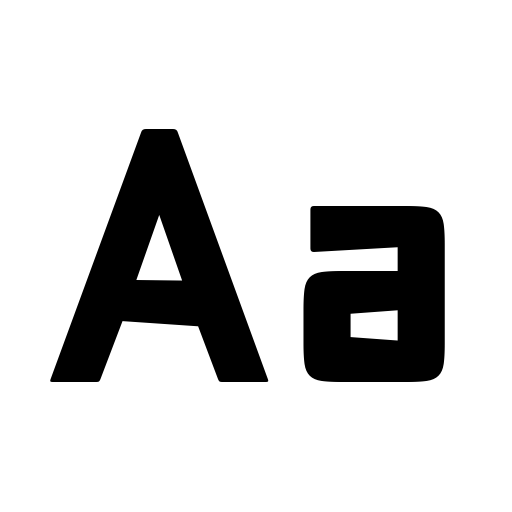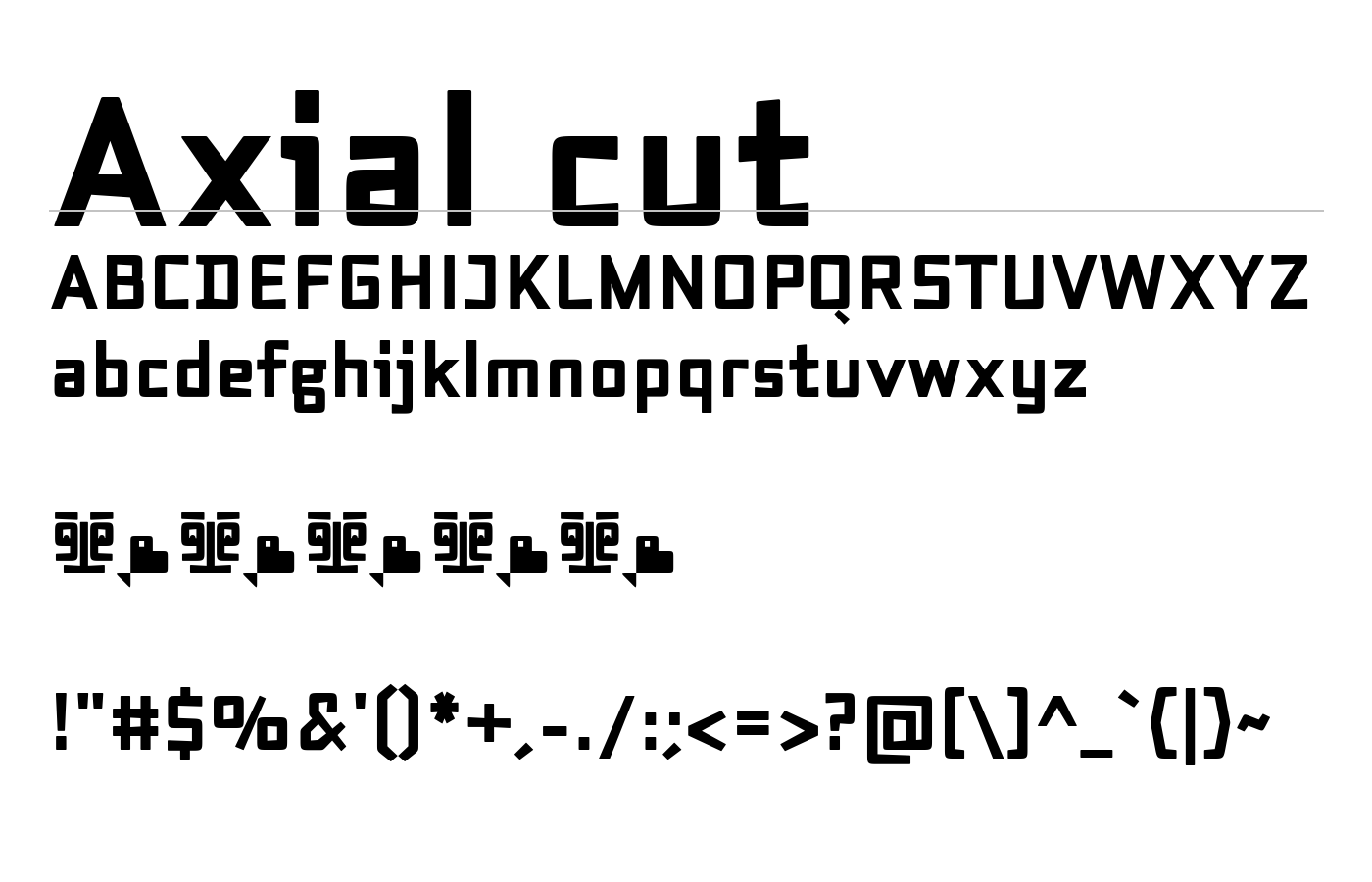
Axial Cut is a bold, condensed sans serif font with a strong geometric and slightly mechanical feel, characterized by its uniform stroke width and sharp, angular edges. Its distinctive cut-like details add a modern, industrial touch, making it ideal for impactful headlines, branding, and designs that need a contemporary, edgy vibe. This typeface works especially well in technology, sports, and urban-themed projects where a bold, confident statement is desired.